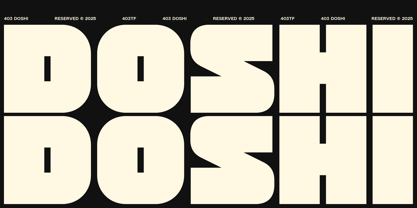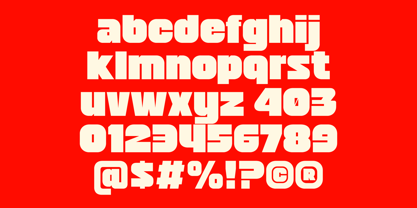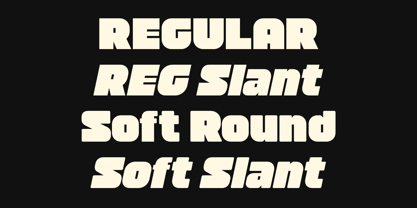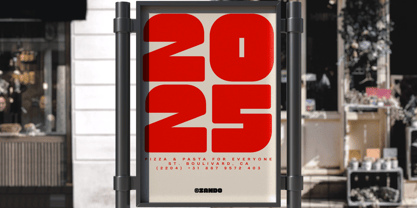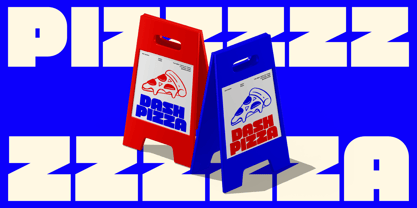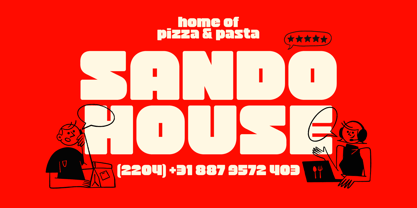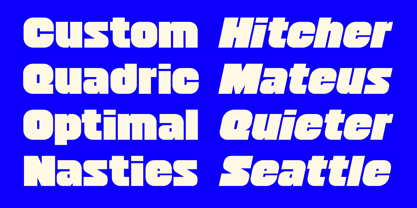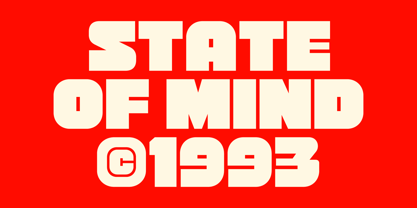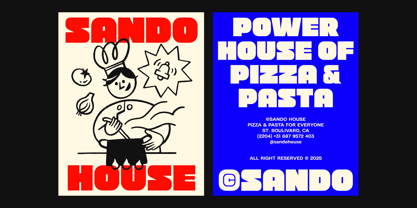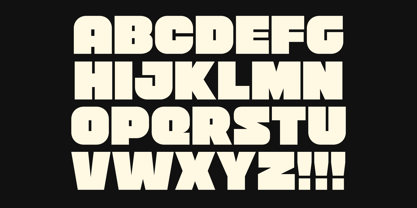
403 Doshi
Die Schriftfamilie 403 Doshi wurde von Umar Al Farouq, Jodi El Ghazi, Febri Riansah entworfen und von 403TF veröffentlicht. 403 Doshi enthält 4 Stile und Familienpaketoptionen.
Bold and adaptable, 403 Doshi is a typeface that is meant to have a powerful visual effect. It comes in four different styles: Regular, Soft, Slanted, and Soft Slant. It provides the ideal ratio of smooth curves to geometric accuracy, making it appropriate for a variety of design applications. With 412 glyphs per style and support for 275 languages, 403 Doshi is a genuinely worldwide typeface that can accommodate a wide range of linguistic and creative needs thanks to its broad character set, punctuation, diacritical marks, and symbols. Whether it is used for digital projects, editorial design, branding, or advertising, its aggressive weight guarantees maximum attention while keeping good legibility. 403 Doshi is a vital tool for designers who want to produce work that is distinctive and striking since it can easily adjust to any design issue, from sleek and contemporary to lively and approachable.